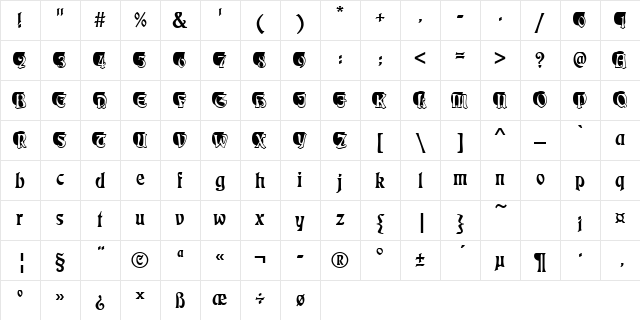
EckmannIniD Regular
Design Context for EckmannIniD
EckmannIniD is a composed and adaptable typeface that performs quietly and consistently across a wide range of design contexts.